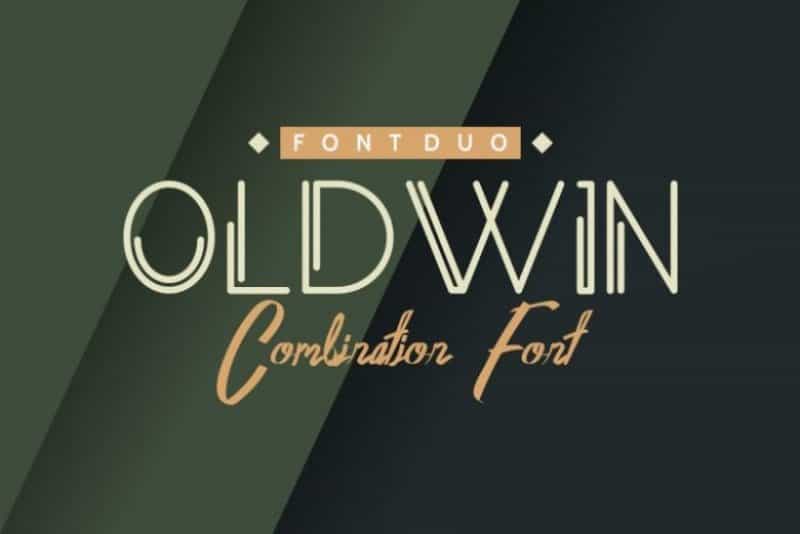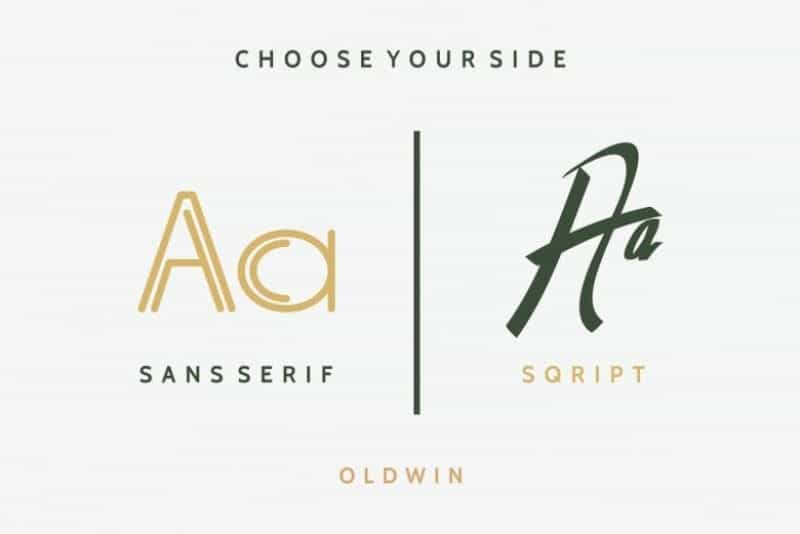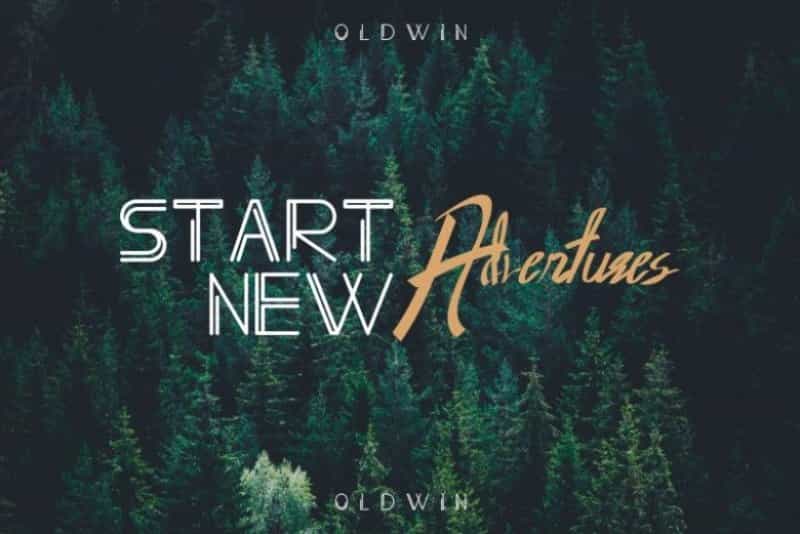
Hi Everyone!Introducing our newest font : Oldwin, it is !Modern + Script Font!This is a new font with modern decorative style and also calligraphy script handmade font. It is the only, graceful, powerful, modern, chic, refined, rich, fast, and classic pen brush style, and the square decorative sans serif.